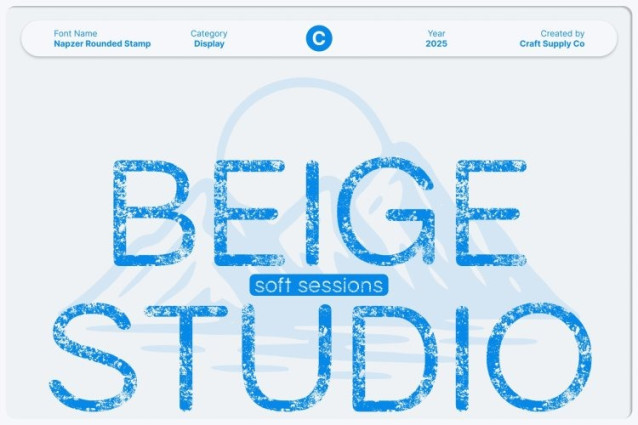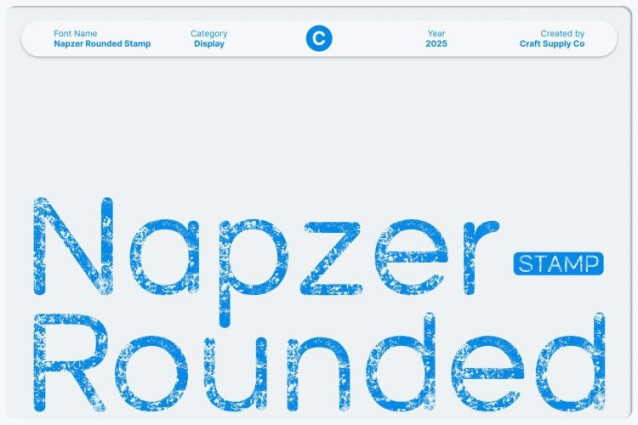
Napzer Rounded Stamp Font
Napzer Rounded Stamp Font This is a modern sans serif font crafted with a geometric foundation, sleek structure, and smooth rounded corners. Its clean design creates a fresh, contemporary impression, while the softened edges add a welcoming and elegant character.
Rounded Geometry for a Smooth and Stylish Look
The font’s geometric shapes and refined curves provide a balanced, stylish appearance suitable for various design aesthetics. Its rounded corners soften, resulting in a font that feels approachable yet confident. This carefully crafted structure enhances readability and gives every layout a polished, consistent visual flow.
Stamped Texture for a Vintage, Expressive Touch
Adding depth to its modern design is the stamp effect, introducing textured edges and handcrafted imperfections to each letter. This unique feature creates a vintage, tactile, and slightly rugged feel that contrasts beautifully with the font’s clean geometry. The result is a typeface that blends contemporary precision with nostalgic charm, offering a rich and expressive visual identity.
Perfect for Branding, Posters, and Modern Display Use
This font is highly effective in display applications, making it perfect for branding, packaging, posters, logos, editorial titles, and creative digital layouts. Its sleek rounded forms guarantee strong visual appeal, while the stamped texture adds unique personality ensuring your designs capture attention with both elegance and character.